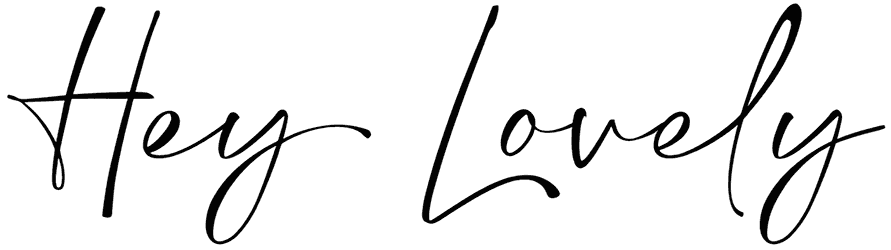
Hey Lovely Font
Hey Lovely can bring charm, elegance, and a handmade feel to your projects. This handwritten font takes its cues from ink letters drawn on paper using a pen. Although the lines in the letters are well-connected, this connection makes it a bit difficult to read.
For this reason, it cannot be used in projects that need to provide transparent content. This is the reason why we see this autograph font only on wedding cards or book cover designs.
++love++Hey Lovely! A modern calligraphy of wet ink with quick strokes. It’s perfect for bringing a casual style to your design projects.
Hey Lovely Fonts has ligatures & alternative characters. This Font is great for logo, printed quotes, badge, insignia, packaging, headline, poster, t-shirt/apparel, greeting card, and wedding invitation, & etc.